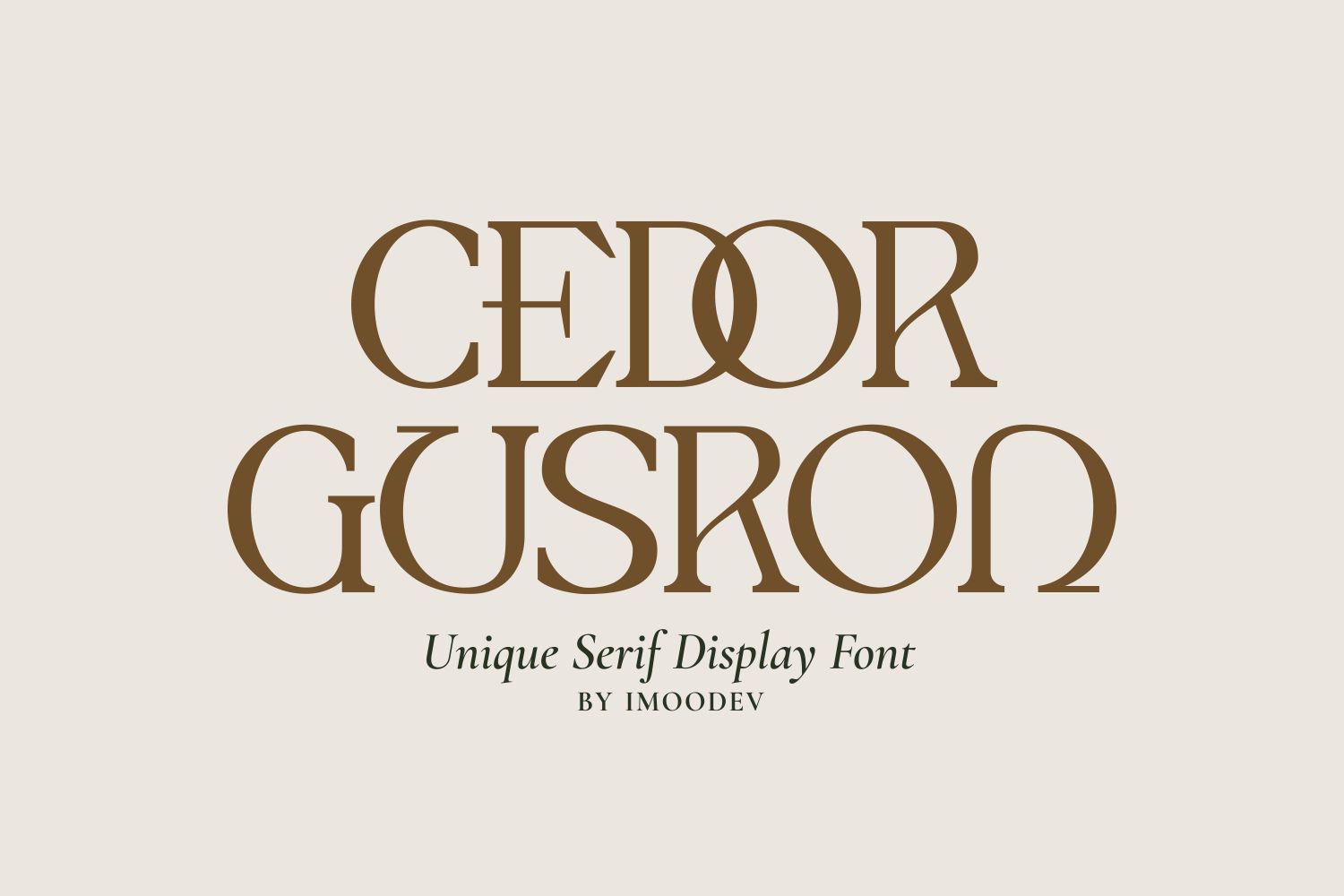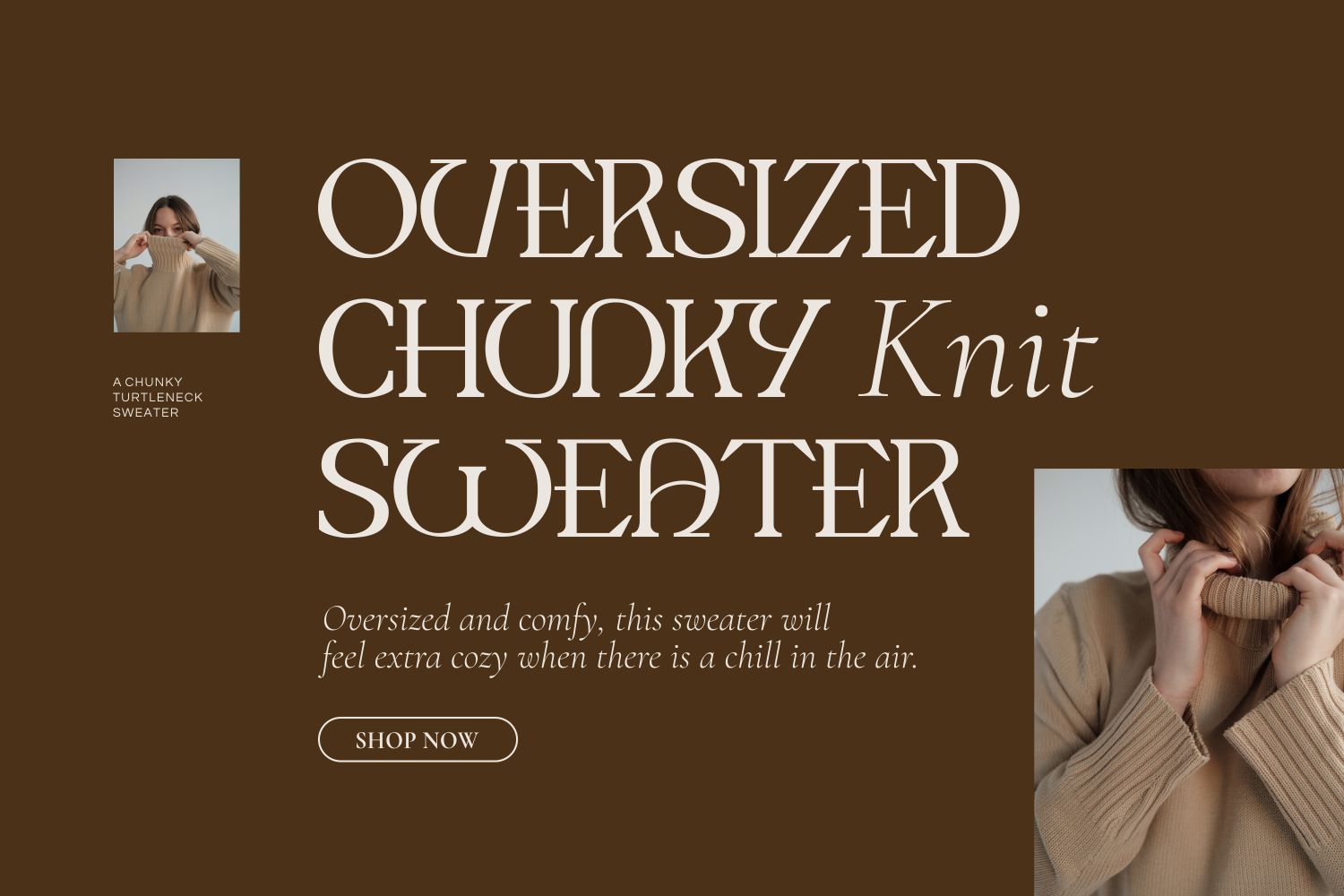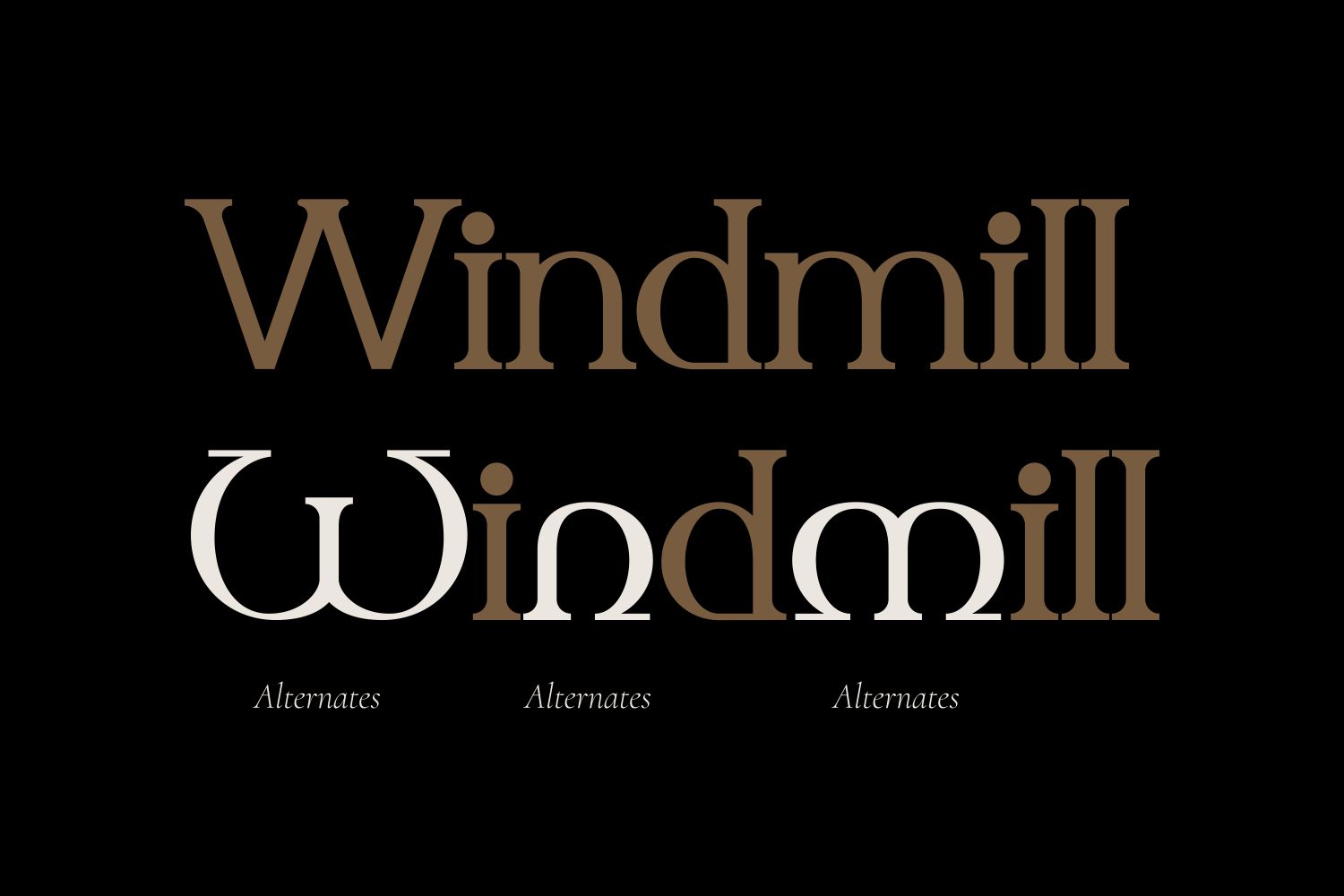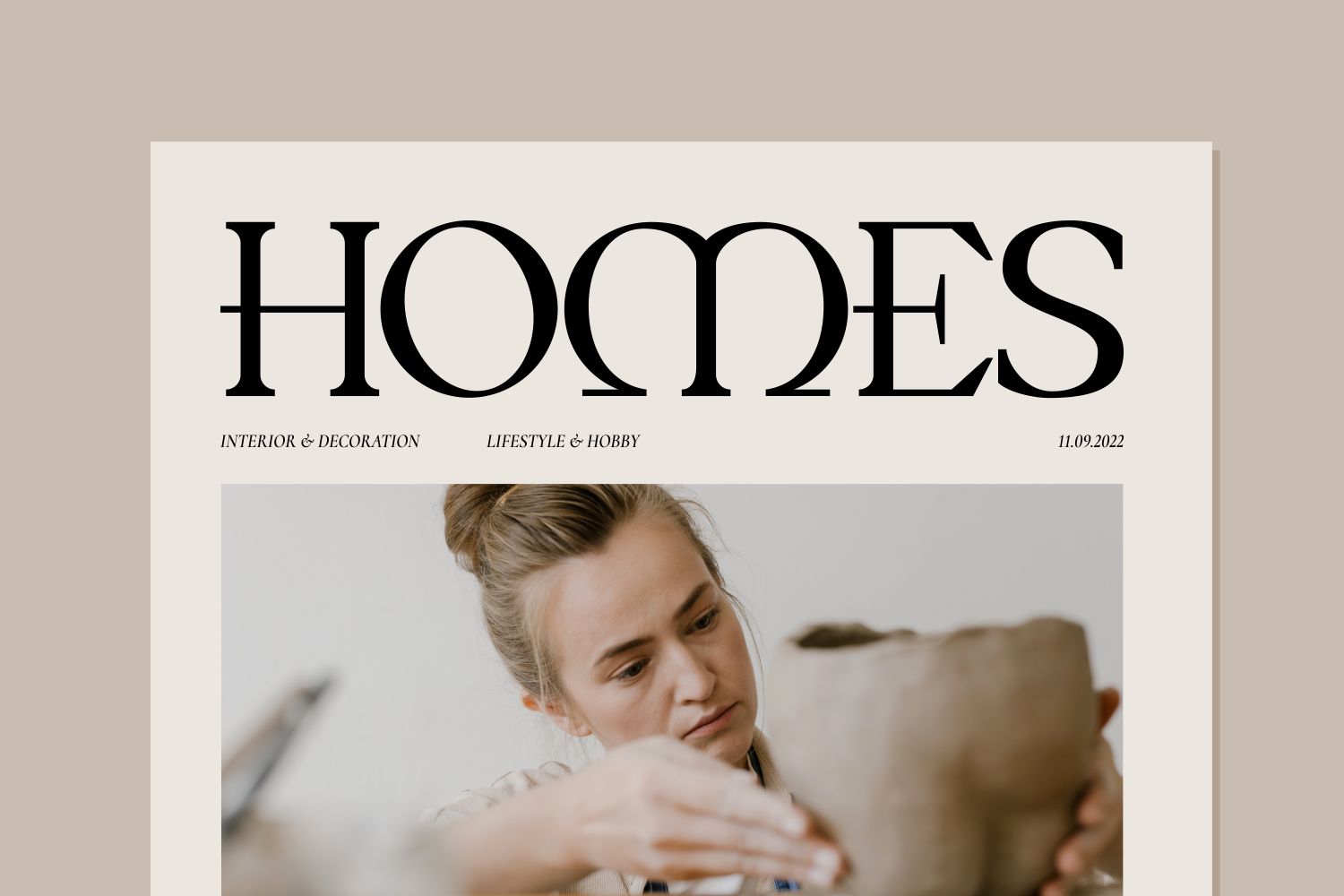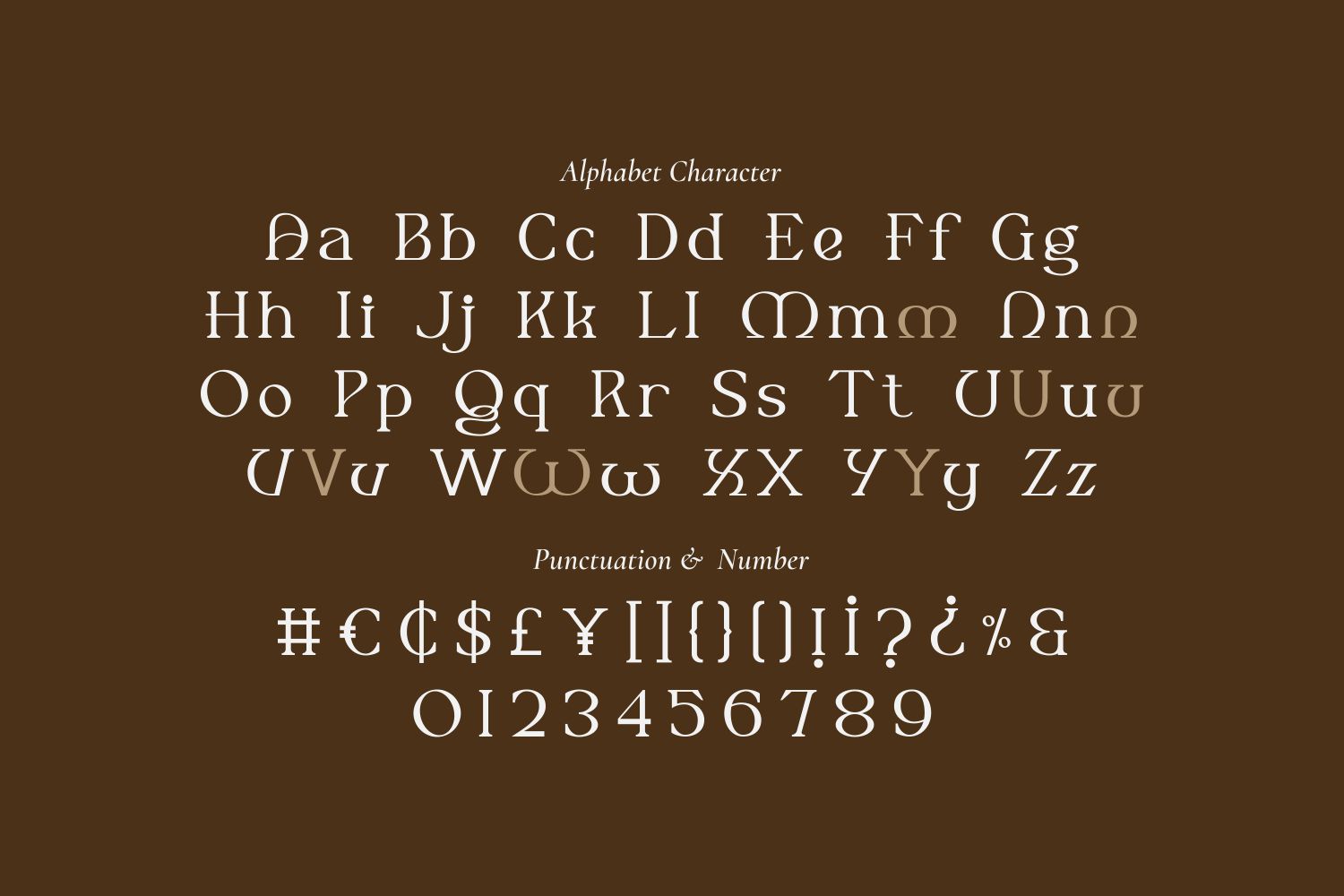
Cedor Gusron is a unique serif display font that combines classic elegance with a modern artistic twist. Featuring refined strokes, sharp serifs, and stylish alternates, this font is perfect for projects that demand sophistication and personality. Its versatile design makes it ideal for editorial layouts, fashion branding, luxury packaging, and high-end product promotions.
With its graceful curves and distinctive character shapes, Cedor Gusron brings timeless charm into contemporary design. Whether used for logos, magazine headlines, book covers, or creative advertisements, this font ensures your work stands out with class and creativity. A perfect choice for designers who want to balance tradition and modernity in one elegant typeface.
Cedor Gusron